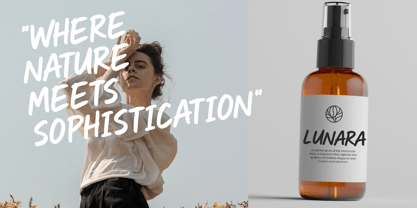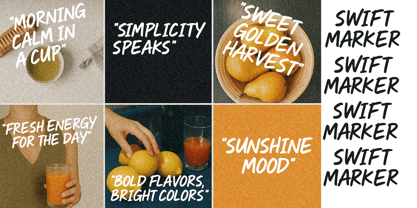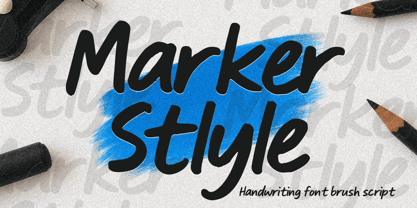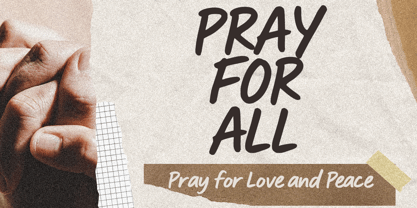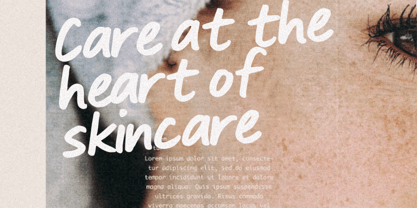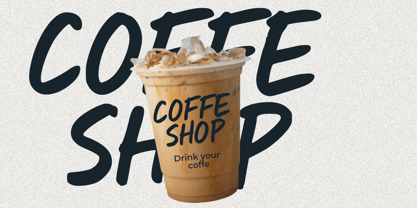
Marker Style
The Marker Style Font Family was designed by Muhammad Zaini and published by Cocodesign. Marker Style contains 1 styles.
This bold hand-lettered script font exudes an energetic, modern aesthetic. Drawing inspiration from quick marker strokes, it showcases smooth curves and a dynamic flow that create an eye-catching visual. The strong contrast in its design makes it perfect for a variety of applications, including branding, web design, and editorial projects, where impactful and expressive typography is essential. Use this font to add a bold and striking touch to your creative endeavors, ensuring your designs stand out with confidence and flair.